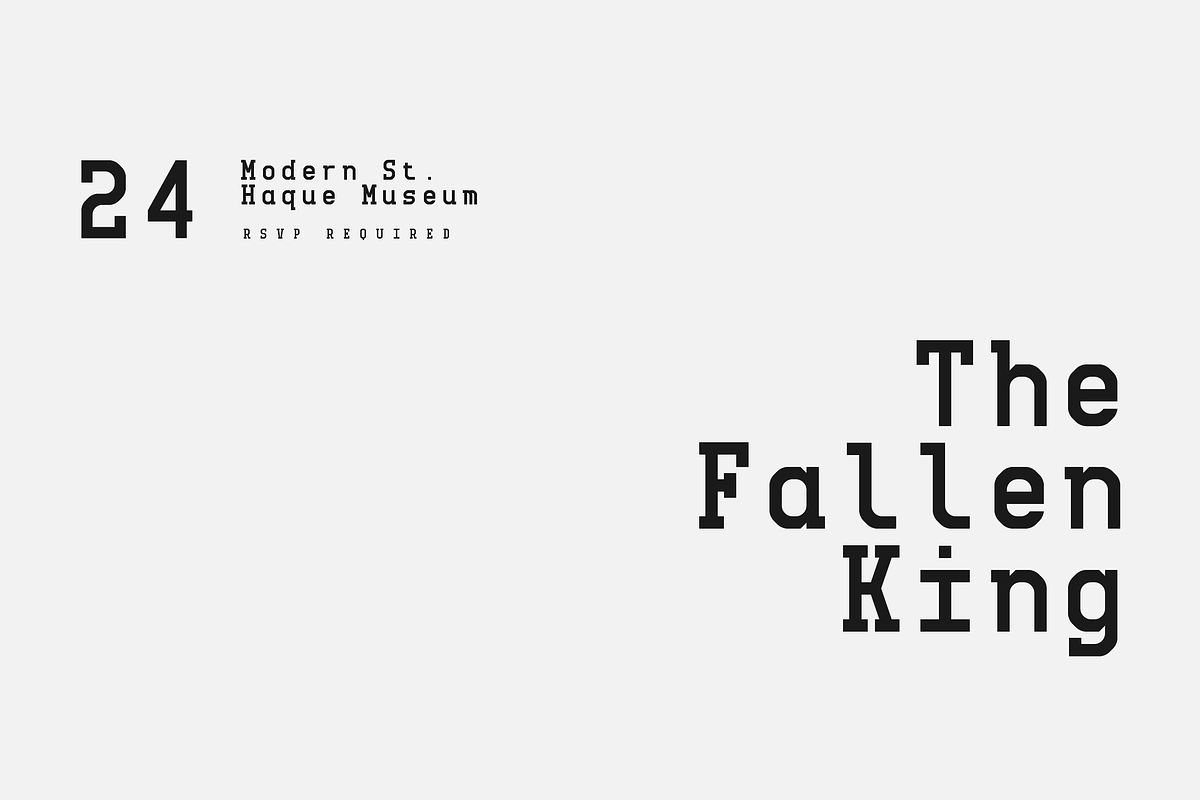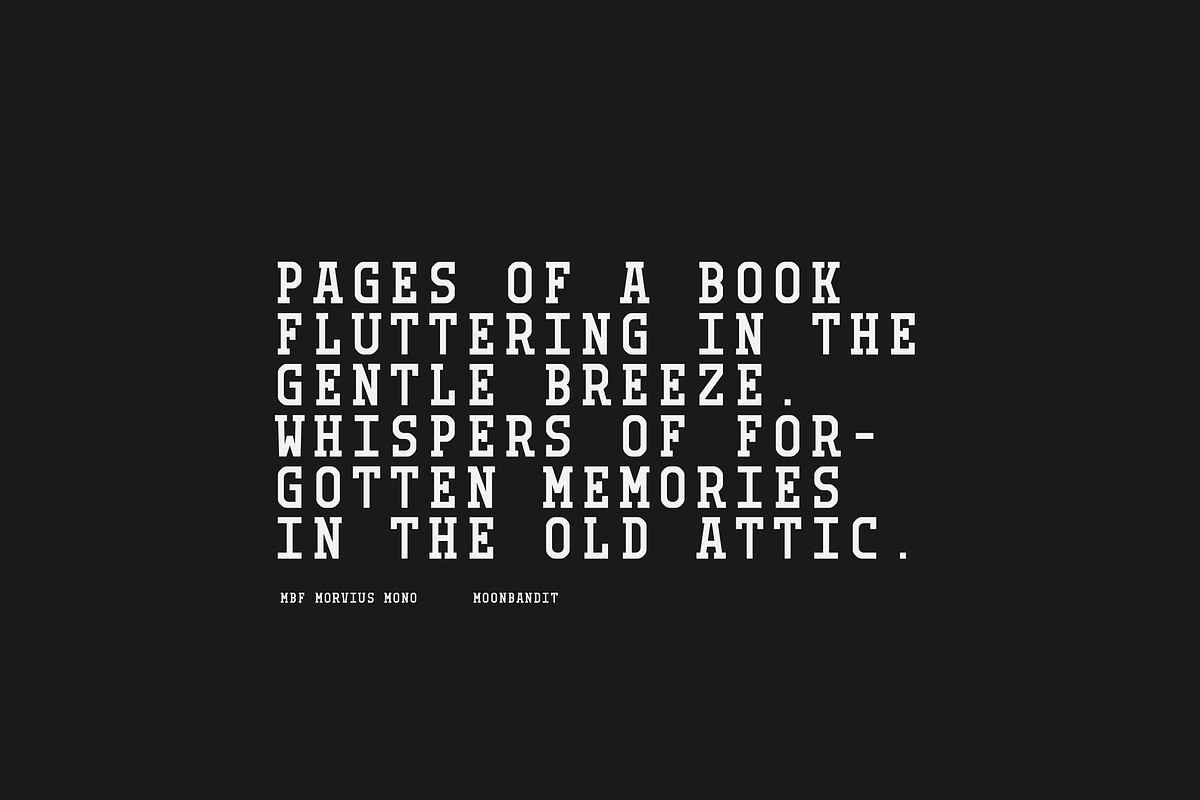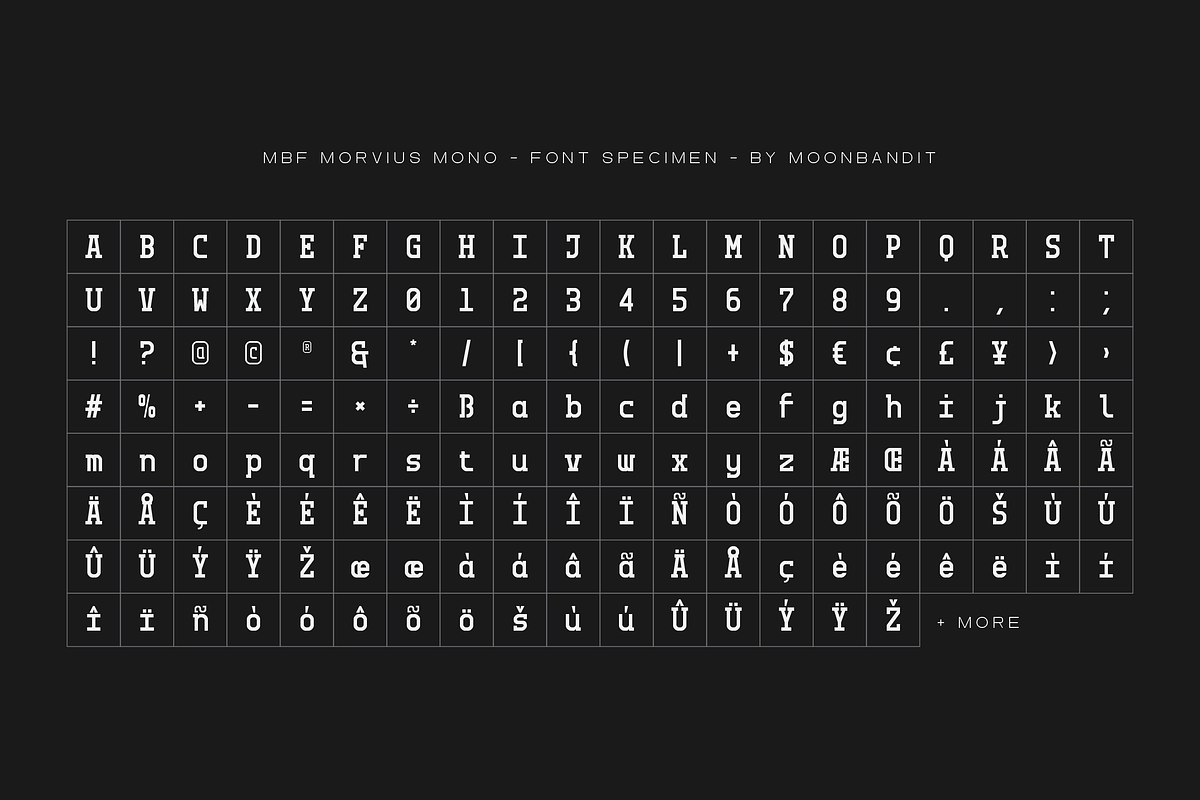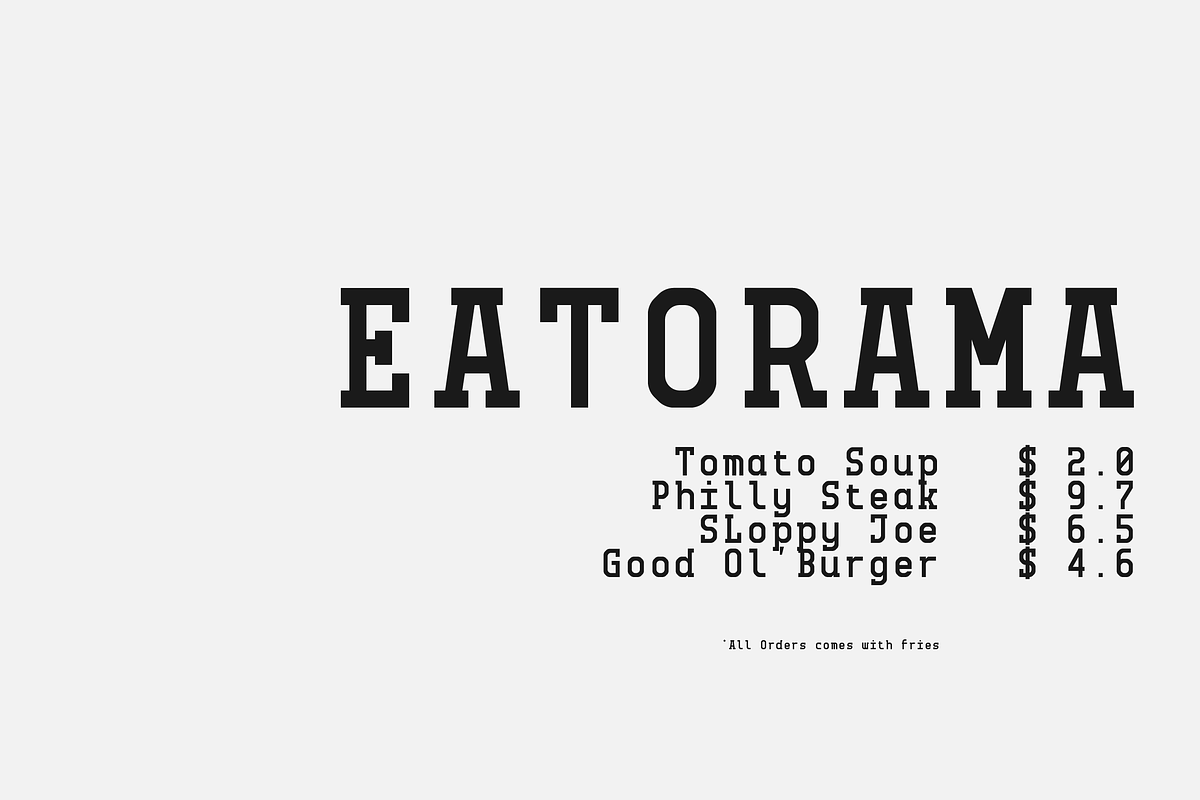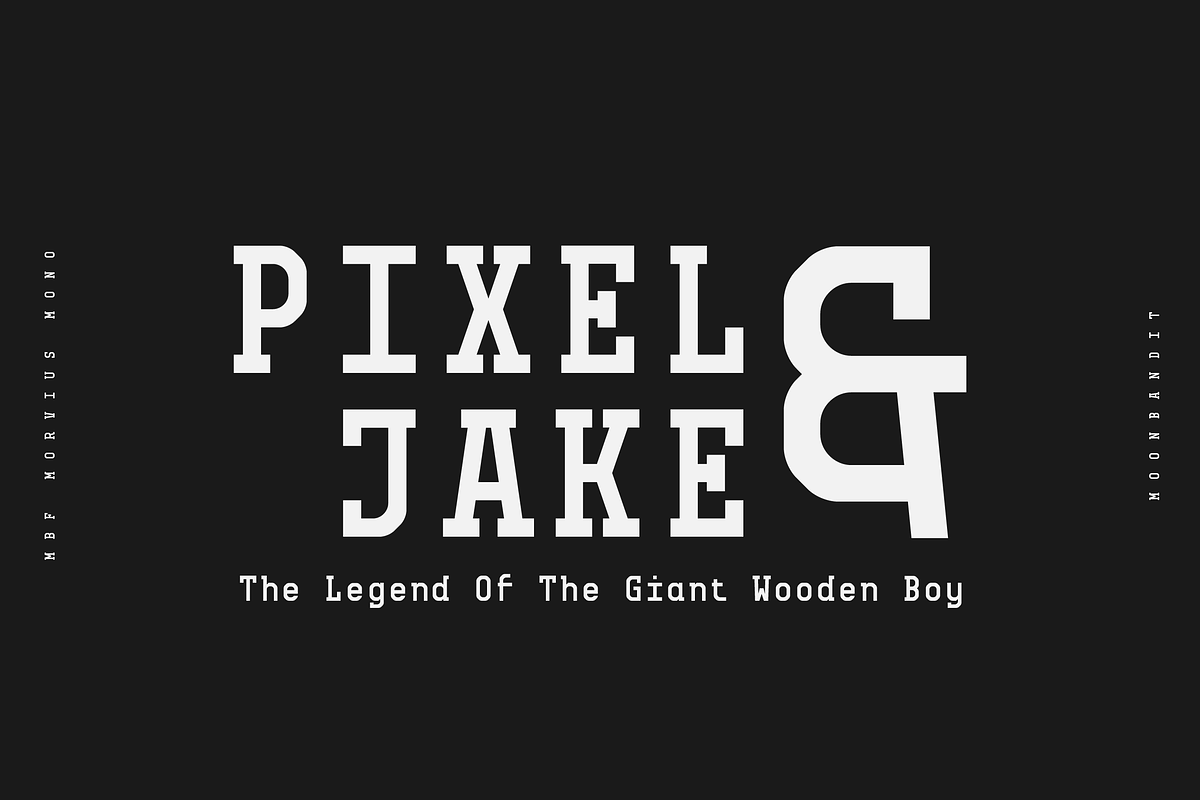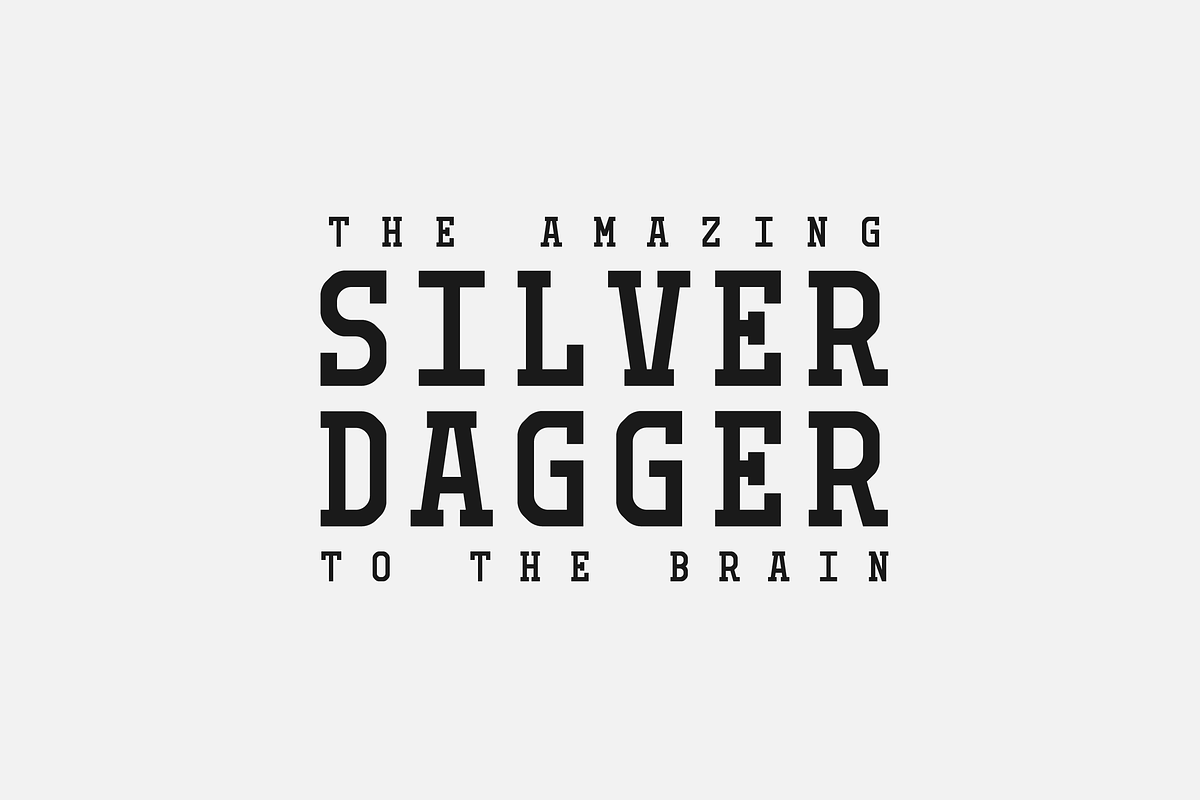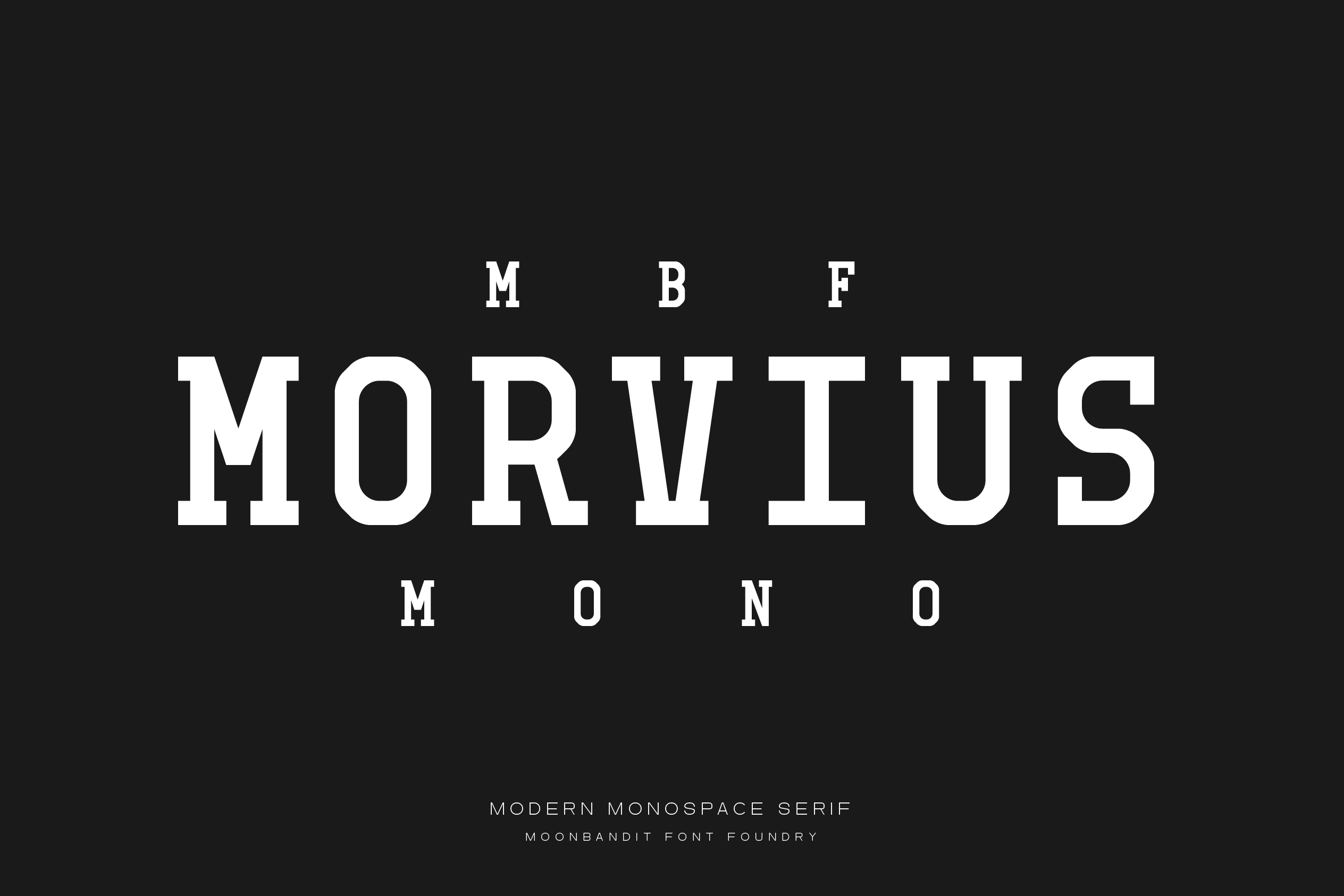
MBF Morvius Mono - modern serif font
MBF Morvius Mono revolutionizes your brand’s identity, merging bold typography with futuristic elegance to captivate forward-thinking audiences.